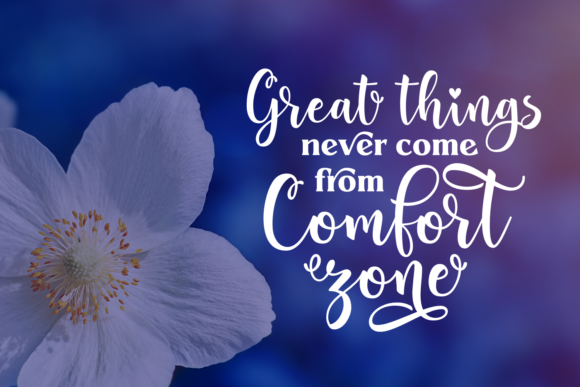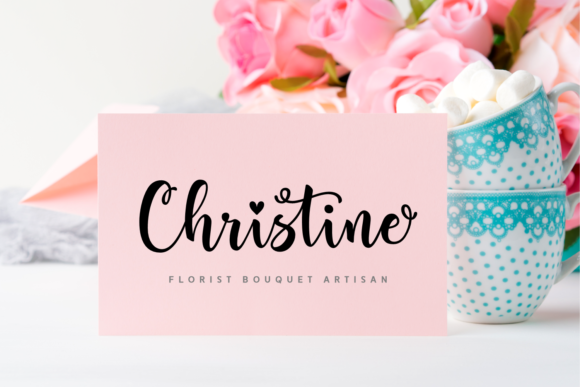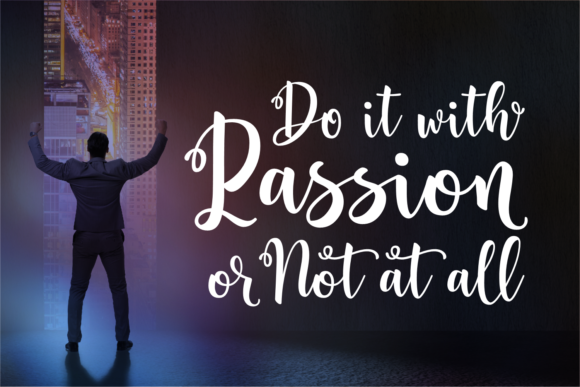
A Touch of Elegance with Ashera Font
Have you ever been brainstorming a design project and suddenly, the perfect font pops into your mind? For me, it’s like finding the missing piece of a puzzle. That magical moment happened when I discovered the Ashera Font. Its beautiful calligraphic characters and elegant swashes transported me to a world of romance and sophistication.
Ashera Font is a modern and unique calligraphy font designed to add a touch of elegance to any design project. Whether you’re creating book covers, headlines, prints, or websites, this font is sure to impress. With its versatility and charm, it’s no wonder designers are falling in love with the Ashera Font. Its value lies in its ability to evoke emotions and create a lasting impression, making it a must-have for any designer’s library.
Ashera Font Key Features
- Font Style: Script, Handwritten, Calligraphy
- Font Size: 1,500 glyphs, 3000+ characters
- Resolution: High-resolution fonts suitable for print and digital use
- Unique Characteristics: Elegant, luxurious, and sophisticated design, perfect for creating a high-end look in various designs, including logos, branding, and packaging.
- Language Support: Multilingual support for various languages, including Latin, Cyrillic, and Greek scripts
Asherah Font Review
Overall, I think the Ashera font is a great addition to any designer’s toolkit. ✨ The elegant and modern design makes it perfect for creating sleek and sophisticated logos, headings, and titles. The font’s versatility allows it to work well in both digital and print media, making it a great choice for a wide range of projects.
One of the things I love about the Ashera font is its large character set, which includes support for a wide range of languages. ✨ This makes it a great choice for global brands and companies that need to communicate with customers in multiple languages.
- Elegant and modern design
- Highly versatile and adaptable
- Large character set with support for multiple languages
- Works well in both digital and print media
- May not be suitable for projects that require a more playful or casual tone
- Lack of bold and italic font styles may limit its use in certain contexts
- May not be as widely supported as more common fonts
In conclusion, the Ashera font is a solid choice for designers looking for a modern and sophisticated font. While it may have some limitations, its versatility and large character set make it a great addition to any toolkit.
Tips for Getting the Most Out of Ashera Font
Use Ashera Font for headings and titles to add a touch of elegance.
Experiment with different font sizes and styles to create visual hierarchy.
Combine Ashera Font with other fonts for a unique and visually appealing design.
Ashera Font is perfect for:
Branding and marketing materials.
Editorial and publishing projects.
Alternatives to Ashera Font
The Great Vibes Font is a modern, elegant script font perfect for creating a sophisticated and stylish look. It is ideal for use in headings, titles, and other display text where a touch of elegance is required. Compared to Ashera Font, Great Vibes Font has a more refined and polished feel, making it suitable for high-end branding and design projects.
The Pacifico Font is a beautiful, cursive script font that exudes a sense of relaxation and sophistication. It is perfect for use in headings, titles, and other display text where a touch of warmth and personality is required. Compared to Ashera Font, Pacifico Font has a more laid-back and casual feel, making it suitable for design projects that require a touch of whimsy and creativity.
The Carolyna Pro Font is a modern, elegant serif font perfect for creating a sophisticated and stylish look. It is ideal for use in headings, titles, and other display text where a touch of luxury and refinement is required. Compared to Ashera Font, Carolyna Pro Font has a more classic and timeless feel, making it suitable for high-end branding and design projects that require a sense of tradition and heritage.
The Alex Brush Font is a beautiful, elegant script font that exudes a sense of sophistication and refinement. It is perfect for use in headings, titles, and other display text where a touch of elegance and luxury is required. Compared to Ashera Font, Alex Brush Font has a more refined and polished feel, making it suitable for design projects that require a sense of high-end style and sophistication.